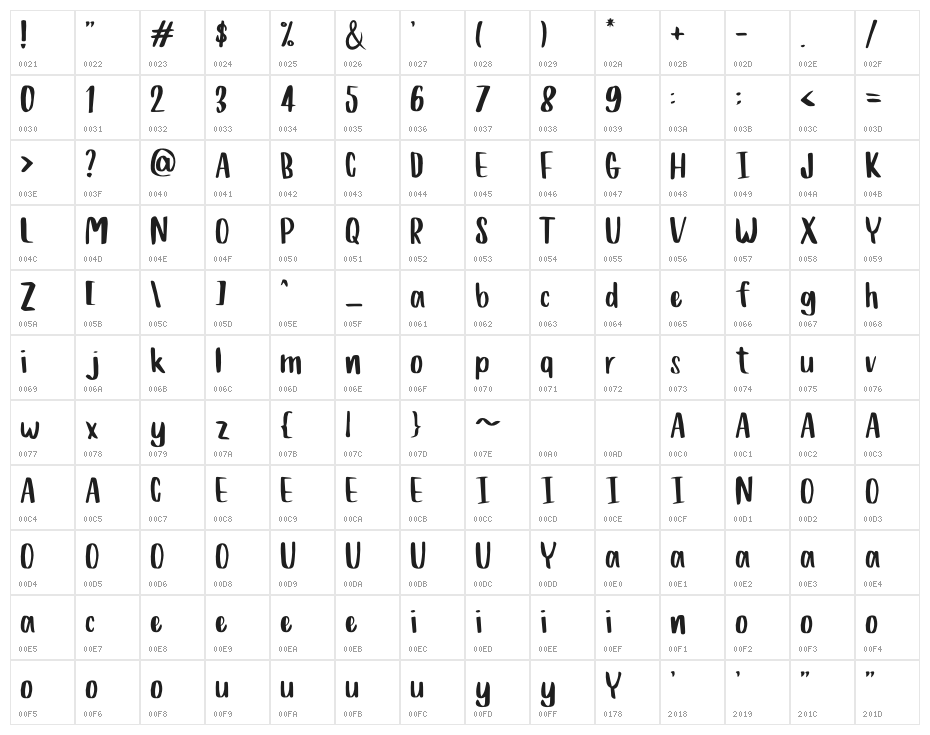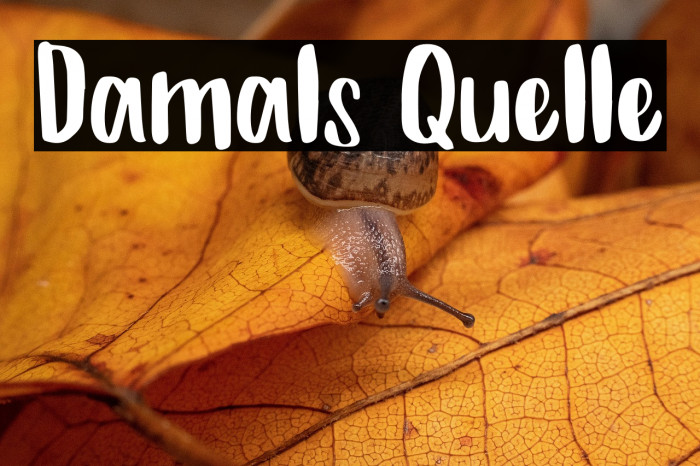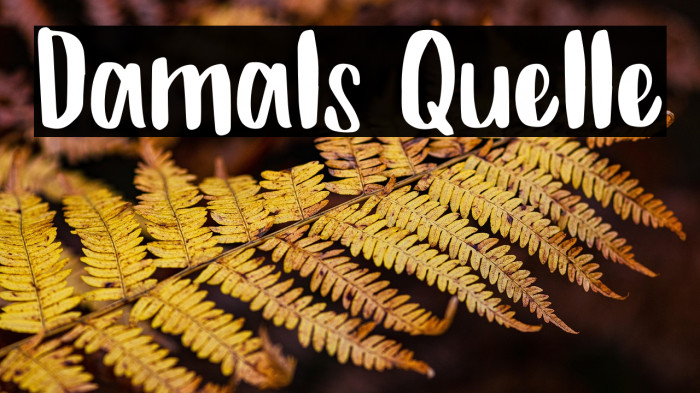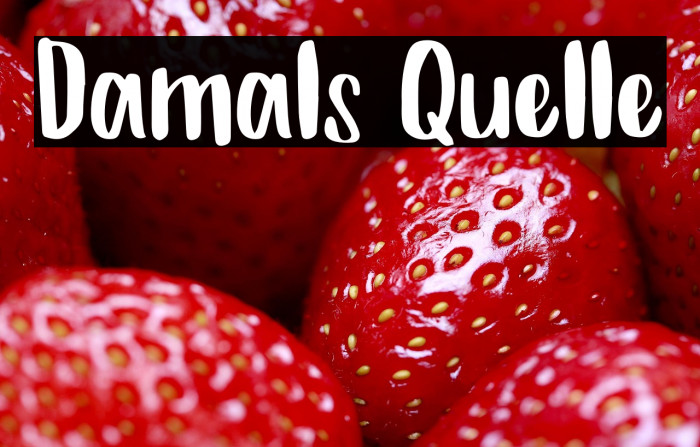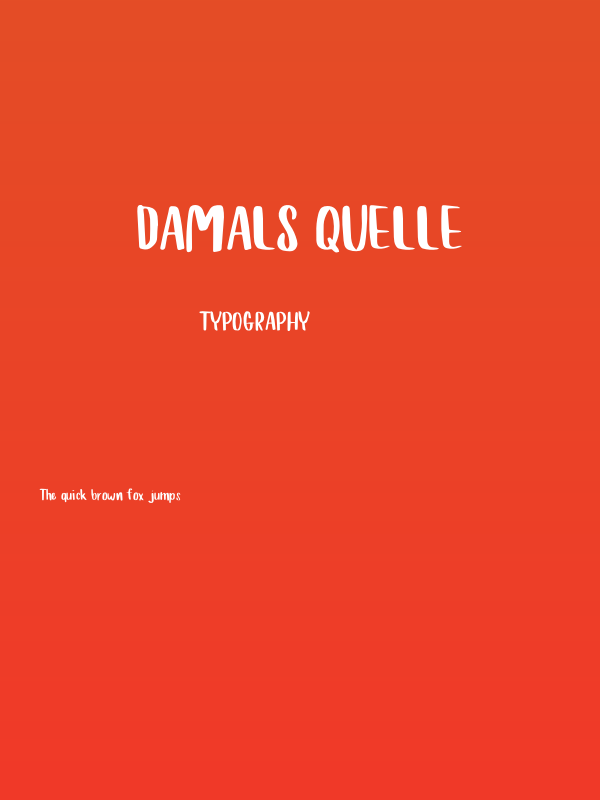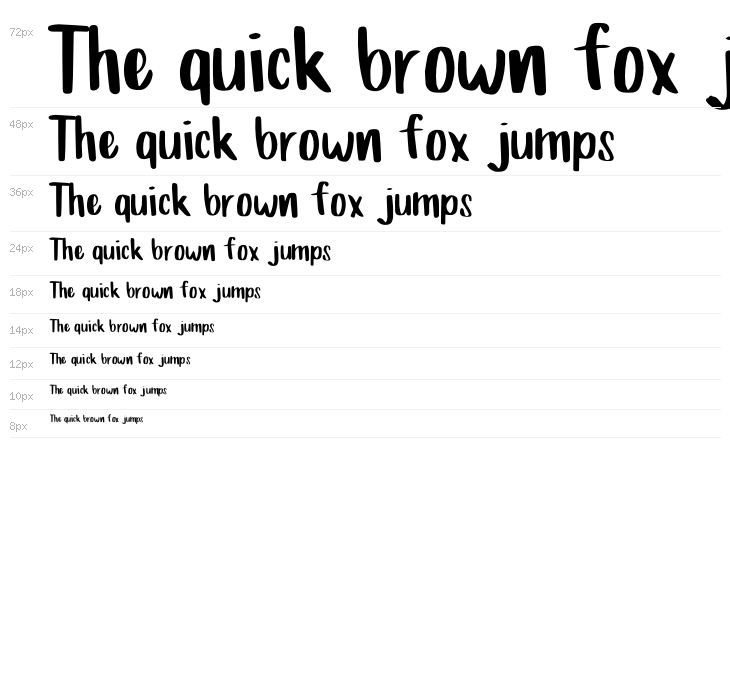
Damals Quelle Font
Damals Quelle Description
This font features a playful and bold handwritten style, characterized by its thick strokes and slightly irregular shapes that give it a lively and informal appearance. The uppercase and lowercase letters maintain a consistent style, with rounded edges and a slight slant that adds to its casual charm. The numbers and special characters are equally bold, ensuring readability while maintaining the font's unique personality. This font is ideal for projects that require a friendly and approachable look, making it suitable for creative and informal designs.
| Proposed Projects | Ideal for greeting cards, children's books, playful branding, and social media graphics. |